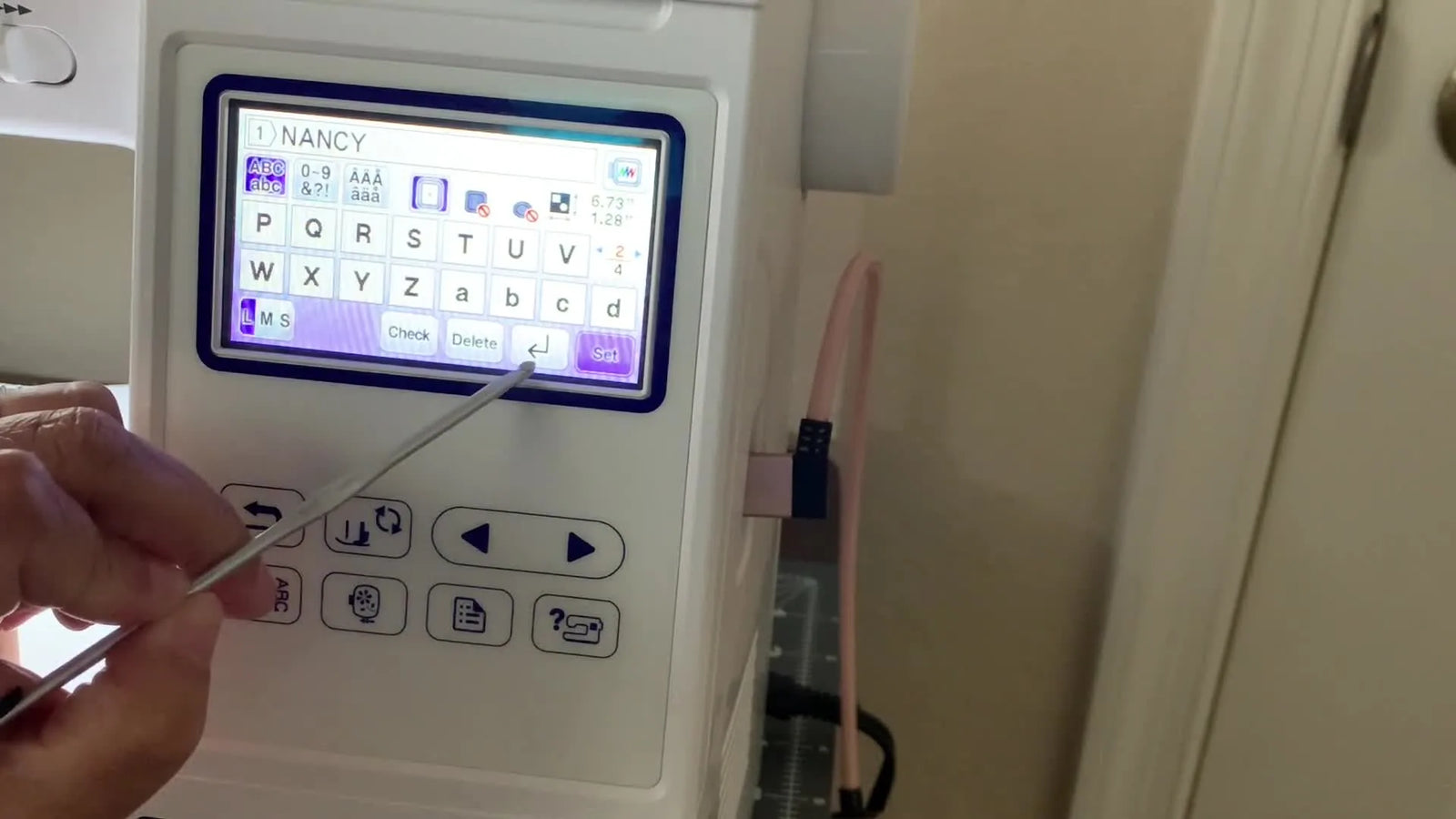
If you own a Brother SE1900, you’ve probably had this exact moment: you type a name, you try to add a last name, and the machine hits you with that scary, high-pitched "beep" and the pop-up text—“Pattern exceeds to the outside of the embroidery frame.”
Take a breath. Nothing is broken. The machine isn't fighting you; it is protecting your hardware.
What’s happening is a physical safety check: the SE1900 is preventing the needle bar from slamming into the hard plastic edge of your hoop, which can shatter needles and throw off your timing. In this post, I’ll rebuild the workflow from the video—fonts, multiple lines, resizing, moving, rotating, and the Knife tool—but I will add the sensory checks and parametric safety limits that generic tutorials leave out.
Calm the Panic: What the Brother SE1900 LCD Home Screen Is Really Telling You
Before you touch a single letter, remember what Jeanette demonstrates right away: you’re working inside the Brother SE1900’s on-screen environment, and it has hard boundaries.
The screen grid represents your 5x7 inch safe zone.
- The machine will let you type until it calculates that the stitch path hits the invisible fence.
- The warning is not a “software bug.” It’s a collision avoidance system.
- The SE1900 has multiple built-in font pages, and the keyboard itself has multiple pages too.
If you’re new, this is good news: you can do a lot of personalization without buying extra fonts or external software, provided you respect the fence.
The “Hidden” Prep Pros Do First: Hoop Reality, Thread Choices, and a Quick Machine Check
Jeanette mentions she’s focusing on screen functions. However, in my 20 years of experience, 90% of lettering failures happen before you press "Start." Lettering is unforgiving—it’s made of satin columns (zig-zags), and if your prep is loose, those columns will distort, leaving gaps or birdnests.
Here is the "Invisible Prep" required for clean text.
Step 1: Hooping by Feel
When you hoop your fabric with stabilizer, do not rely on sight. Use your fingers.
- The Drum Test: Tap the fabric. It should sound like a dull drum.
- Surface Tension: Run your fingers over the surface. If the fabric ripples like water, it is too loose. It needs to be tight, but not stretched like a rubber band (which causes puckering when released).
Step 2: Thread & Needle
- Needle: Lettering requires precision. Use a fresh 75/11 Embroidery Needle. If your current needle has hit a hoop or been used for more than 8 hours, throw it away. A dull needle punches holes rather than piercing fibers, making text look ragged.
- Bobbin: Listen for the "click" when inserting the bobbin into the case. If you don't hear/feel that click, your tension will be zero, and you'll get a mess on the back.
Prep Checklist (Do this BEFORE typing)
- Hoop Check: Confirm you are using the Standard hoop (5x7) or larger. The machine defaults to this field.
- Stabilizer Match: Do not use Tearaway on a T-shirt. (See the Decision Tree below).
- Needle Audit: Is the needle straight and sharp? Run your fingernail down the tip—if it catches, it’s burred. Replace it.
- Machine Environment: Ensure the embroidery arm has clear space to move.
- Hooping Pain: If precise hooping takes you more than 3 attempts, or if tightening the screw hurts your wrist, acknowledge that your current hoop might be the bottleneck.
Warning: Embroidery machines are industrial tools. Needles move at 400-800 stitches per minute. Keep fingers away from the needle bar area. Never attempt to trim a jump stitch while the machine is running.
Pick a Built-In Font on Brother SE1900 (and Don’t Miss the Second Font Page)
On the font selection screen, Jeanette shows a grid of font styles. Here is the context a beginner needs:
- Font 1-3 (Block/Sans Serif): These are your "Safety Fonts." They stitch reliably on most fabrics (towels, cotton, canvas).
- Script/Serif Fonts: These have thin columns. If you are stitching on something fluffy (like a towel) without a water-soluble topper, these thin stitches will disappear into the pile.
Navigation Tip:
- Tap into the font category.
- Look at the bottom arrows. Beginners often miss that there are two pages of font options.
- Pick a font based on legibility, not just style.
Type Names on the Brother SE1900 Keyboard: Size (L/M/S), Caps, and the Missing “Y” Problem
Once you Select a font, the SE1900 interface opens. Notice the L / M / S tabs on the right side.
The "Missing Letter" Panic: Jeanette demonstrates typing “NANCY.” Many users panic when they need a "Z" or "Y" and can’t find it.
- The Fix: The screen can only display A-M or N-Z at one time. Look for the Tab arrows at the bottom right of the keyboard grid to flip pages.
- Case Sensitivity: Use the aA button to toggle.
Pro Tip on Sizing: Always select the Size (L/M/S) before you finish typing if possible.
- Level 2 (tool): use a magnetic hoop to clamp faster, reduce screw-tightening fatigue, and minimize hoop burn on delicate/performance fabrics.